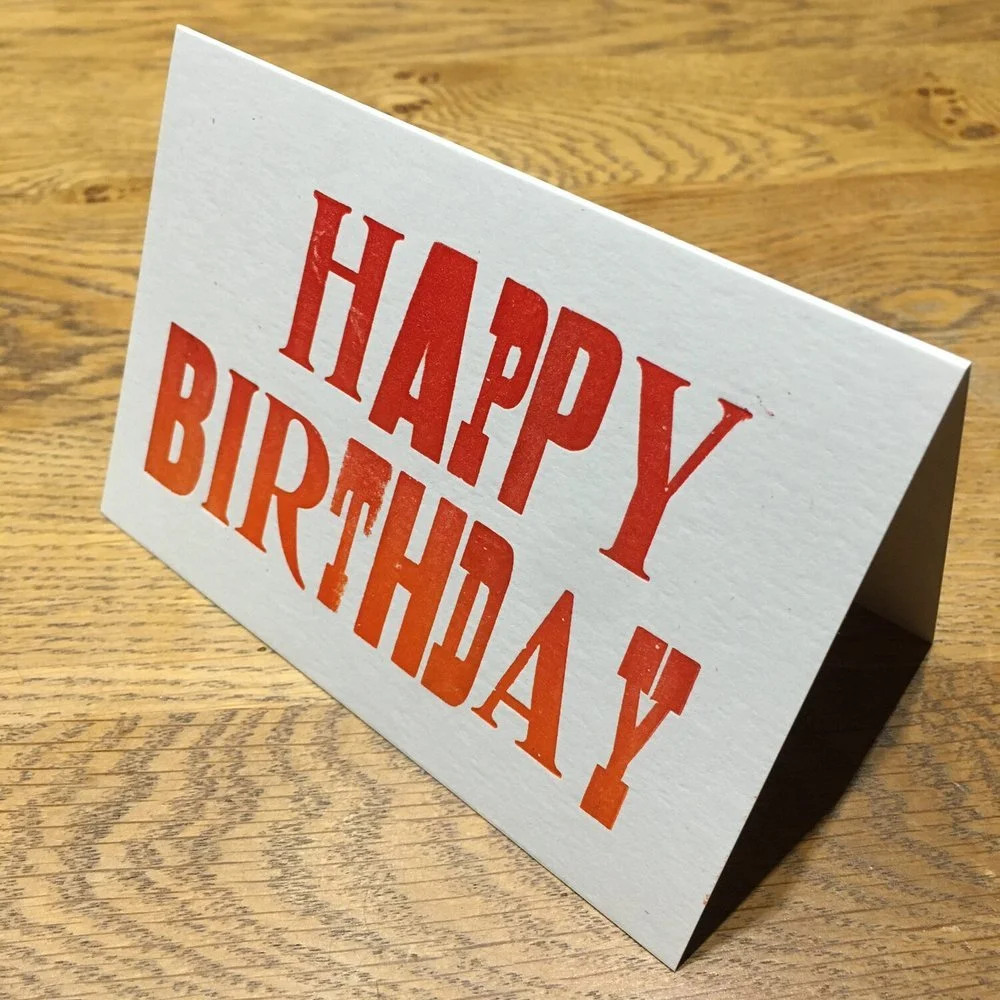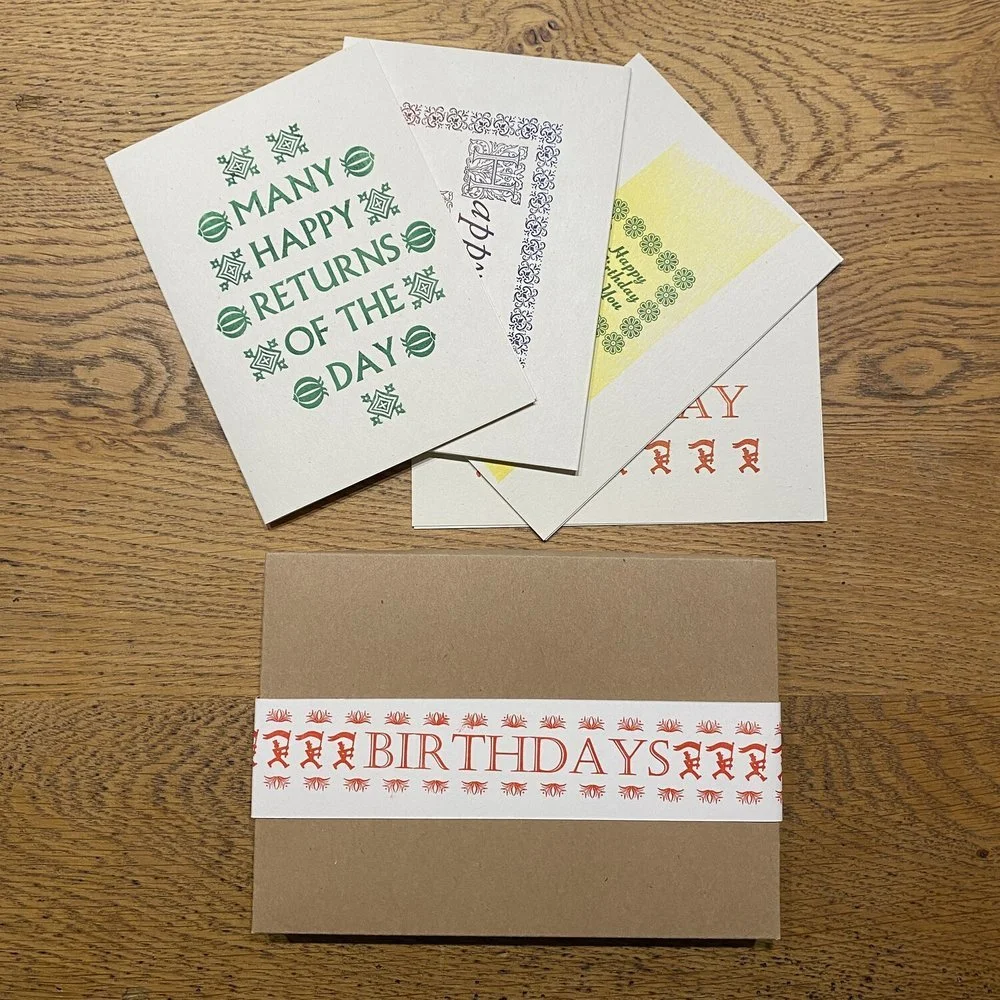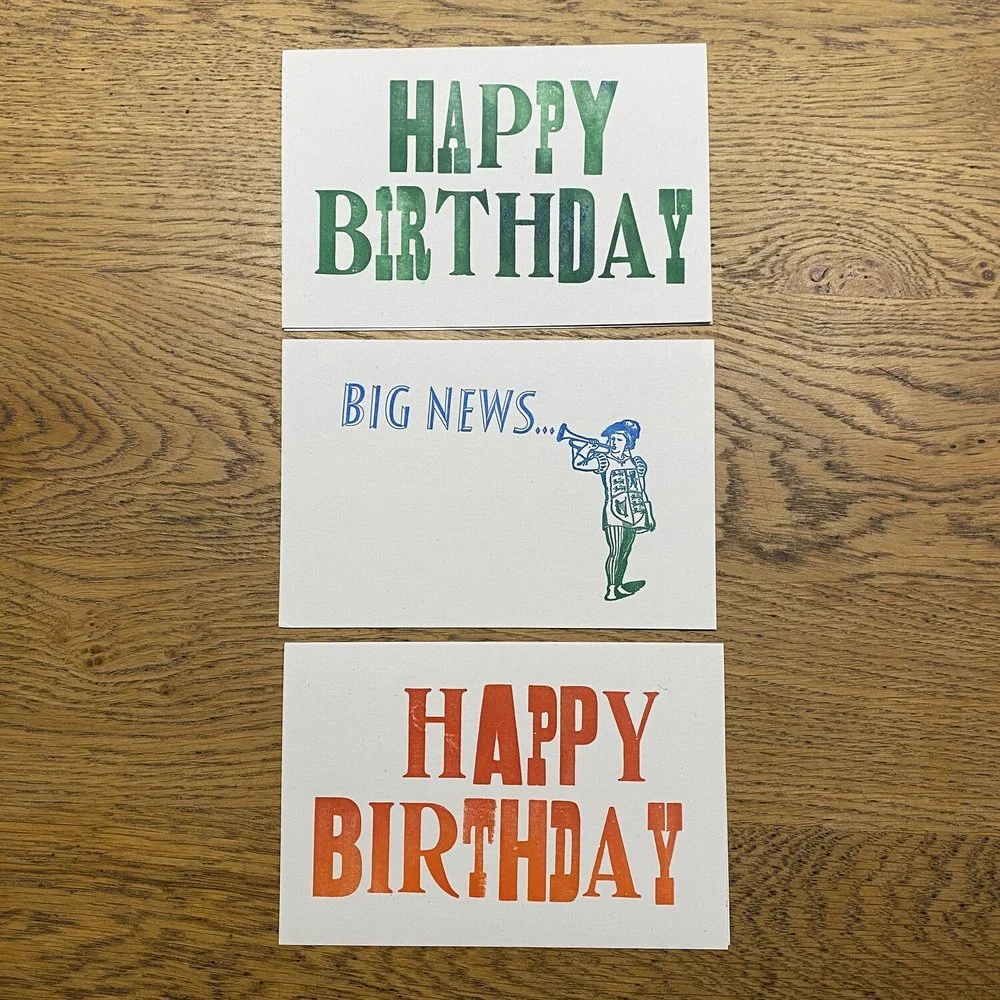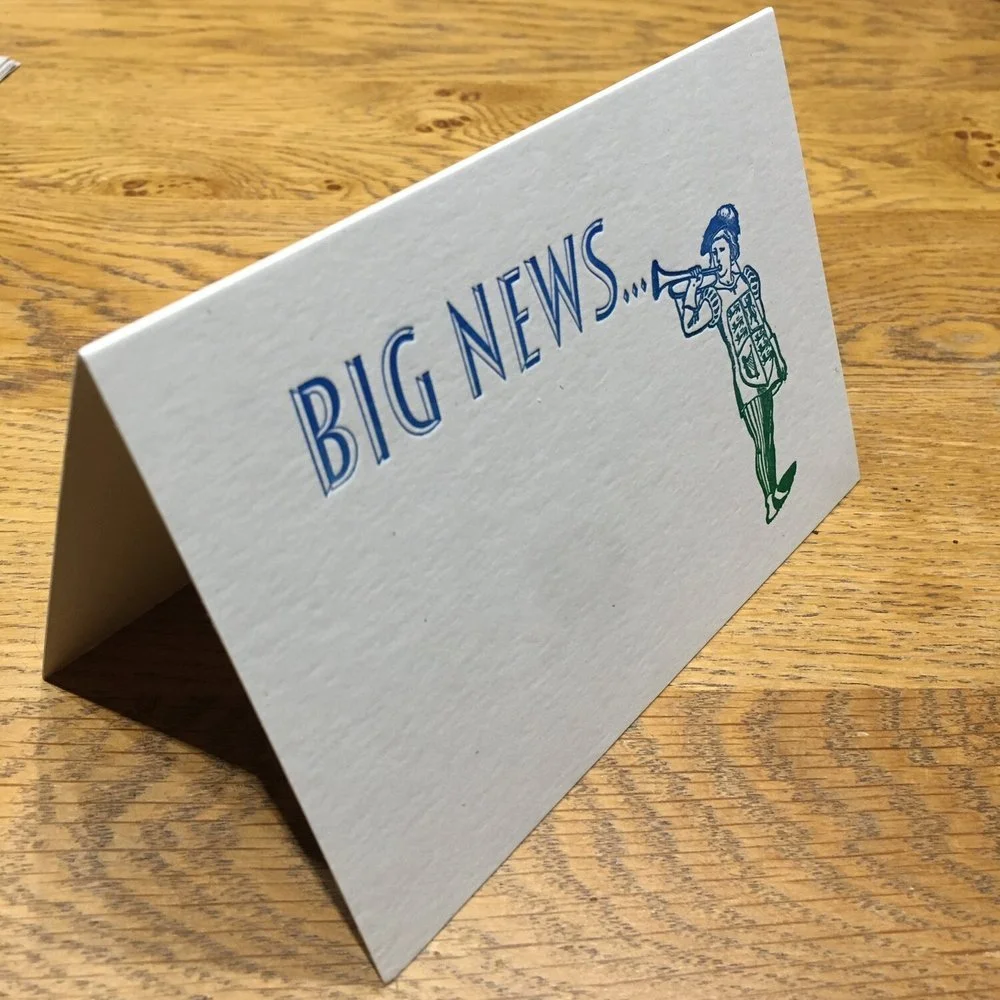
Lovely boxes of handprinted birthday cards, packaged in a kraft card box with a printed bellyband. Great to have at hand to help avoid last minute card panics. With their simple yet stylish packaging they also make an ideal as a gift. Each box has 8 A6 size cards & envelopes printed on creamy eco-friendly card stock.
SET 1: A selection of 8 cards, 2 of each design. Made using metal type and ornaments featuring fancy capital letters, beautiful patterned ornaments, a rather splendid crown and one of my favourite pieces of type…the flag-waving man!
SET 2: A selection of 8 cards from 3 designs. Made using well loved woodtype letters and a royal trumpeter with big news.
Elizabeth Fraser is an artist printmaker experimenting with the analogue processes of hand set letterpress type and linocut from her Cambridgeshire garden studio. Inspired by the invisible connections and structures that verbal and written language make in our lives she uses colour, pattern and space to create her playful work. Elizabeth also has an interest in using art as a means to explore and engage with science to create greater understanding and appreciation of their shared basis of creative enquiry.